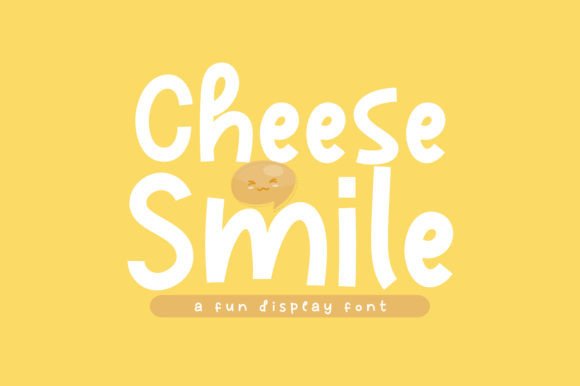
Introducing Cheese Smile Font, the delectable display font that will bring a cheesy grin to your creative endeavors! Let your imagination run wild as you explore the boundless possibilities of this playful and engaging typeface.
Crafted by the talented si.jalembe, Cheese Smile Font exudes an irresistible charm that is sure to captivate your audience. Its whimsical curves and cheerful demeanor make it the perfect choice for adding a touch of lightheartedness to your designs.
Whether you're a seasoned graphic designer or just starting your creative journey, Cheese Smile Font is your trusty companion. Its versatility knows no bounds, making it suitable for a wide range of projects, from quirky logos and eye-catching posters to vibrant social media posts and enchanting invitations.
**A Font with Endless Possibilities:**
Unleash your creativity and let Cheese Smile Font elevate your designs to new heights. Use it to create:
- Enchanting logos that radiate warmth and personality
- Engaging posters that demand attention and ignite imaginations
- Dynamic social media posts that capture hearts and spread smiles
- Captivating invitations that set the tone for unforgettable events
- Playful greeting cards that convey heartfelt messages in a unique way
- Whimsical packaging designs that make products irresistible
- Eye-catching website designs that leave a lasting impression
- And so much more!
**Why Choose Cheese Smile Font?**
In a world of ordinary fonts, Cheese Smile Font stands out as an extraordinary choice. Here's why:
- **It's Playful:** Its cheerful and whimsical design is guaranteed to bring a smile to your face.
- **It's Versatile:** From logos to greeting cards, this font adapts effortlessly to a variety of projects.
- **It's Memorable:** Its distinctive appearance ensures that your designs will leave a lasting impression.
- **It's Easy to Use:** Whether you're a seasoned designer or just starting out, Cheese Smile Font is a breeze to work with.